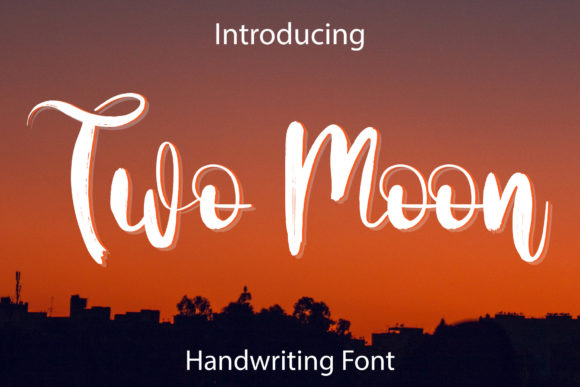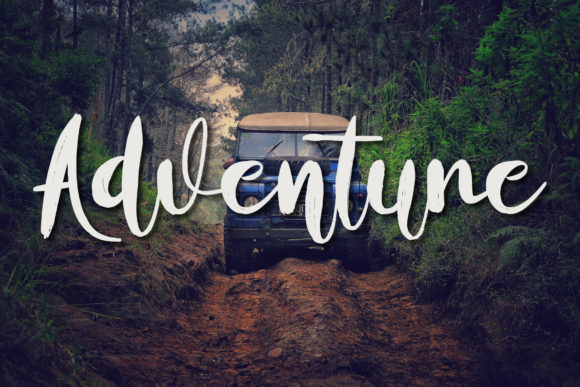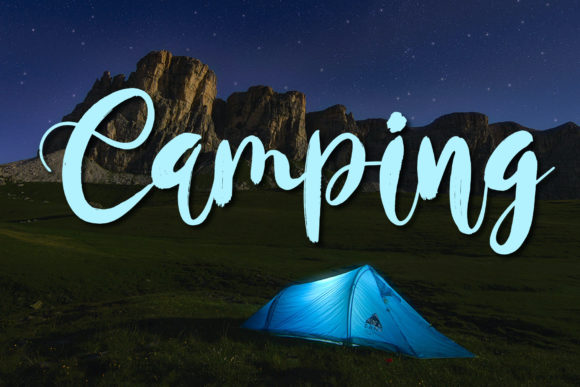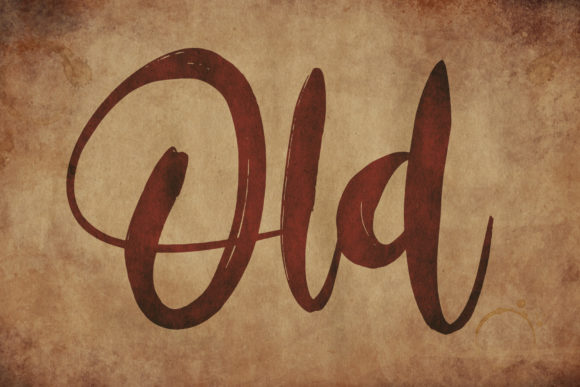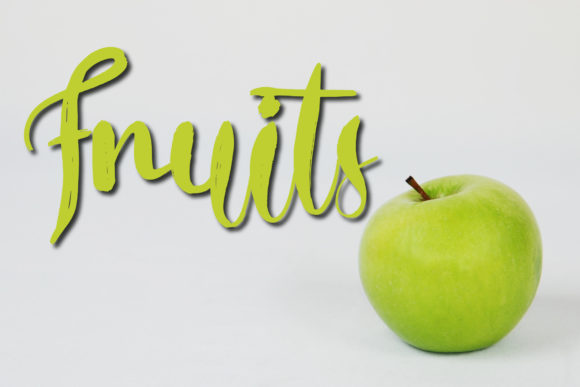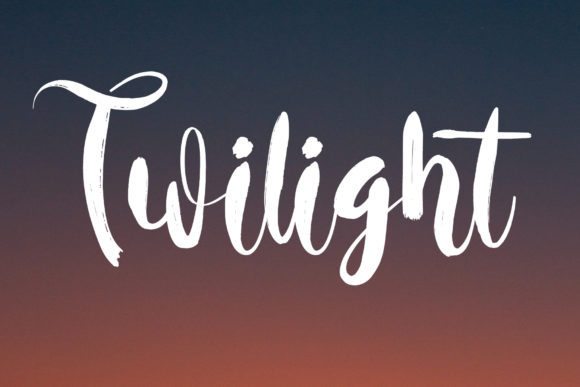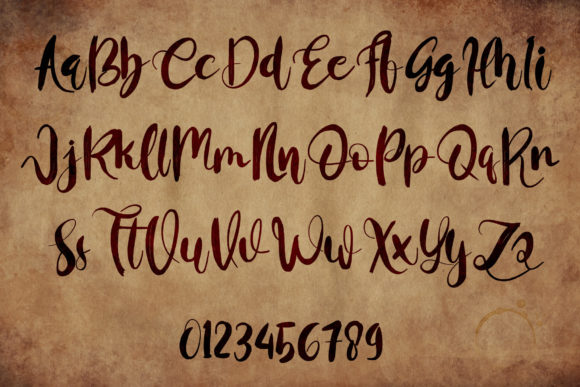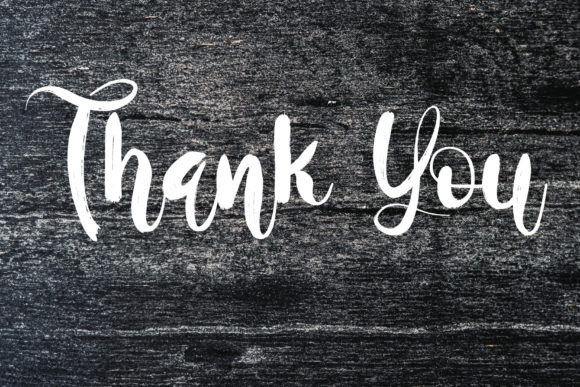
Two Moon Font
About Two Moon Font
“Two Moon” is introduced as a free-flowing script font specifically designed for various applications such as packaging products, invitation cards, flyers, mockups, event posters, and any other project that demands high-quality vibes. The font is described as having a beautiful and balanced character, making it compatible with a broad range of design styles.
The mention of “Two Moon” being free-flowing suggests a natural and unrestrained quality, which can add a dynamic and organic feel to the typography. The font is positioned as versatile, suitable for a diverse array of design projects.
The focus on its suitability for packaging, invitations, flyers, and posters indicates that “Two Moon” is crafted to complement both digital and print designs, offering flexibility for designers across various mediums.
In summary, “Two Moon” is presented as a script font with a free-flowing and balanced character, making it adaptable for a wide range of design applications. Its compatibility with different design styles and its suitability for both digital and print projects position it as a versatile and high-quality font for various creative endeavors.